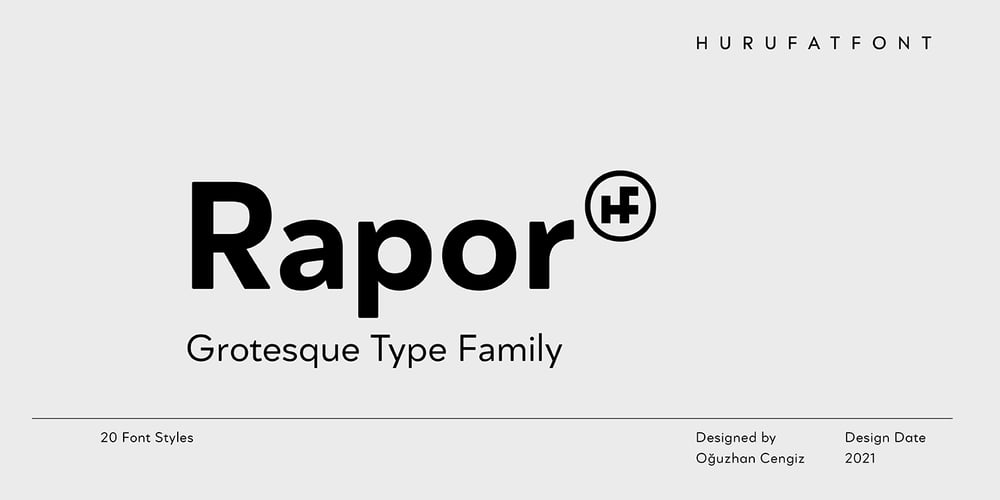
Rapor Font Family was designed by Oğuzhan Cengiz and published by Hurufatfont. Rapor contains 20 styles and family package options. Rapor is a powerful and elegant combination, built from a combination of sans serifs with strong gemometric foundations such as Futura, and grotesque fonts based on the equal-width system. Its slightly softened evenly converging diagonal corners add distinctiveness to it.It has 10 weights ranging from Thin to Black. It consists of twenty styles with matching italics.Rapor is equipped for professional typography with rich opentype features.Rapor OpenType features:aalt, locl (Romanian, Moldovian, Dutch, Catalan, Turkish, Azeri, Crimen Tatar, Kazakh), ordn, locl, case, frac, sinf, subs, sups, numr, dnom, tnum, onum, lnum, pnum, ss01 (Alternative a), ss02 (Alternative g), ss03 (Alternative r), ss04 (Alternative M), ss05 (Circled Figures), ss06 (Apostrophe), ss07 (Dingbats Ligature), dlig, liga, salt, cpsp, calt.Rapor Language Support:Afrikaans, Albanian, Alsatian Aragonese, Arapaho, Aromanian, Arrernte, Asturian, Aymara, Basque, Belarusian (Lacinka), Bislama, Bosnian, Breton, Catalan, Cebuano, Chamorro, Cheyenne, Chichewa (Nyanja), Cimbrian, Corsican, Croatian, Czech, Danish, Dutch, English, Esperanto, Estonian, Faroese, Fijian, Finnish, French Creole (Saint Lucia), Frisian, Friulian, Galician, Genoese, German, Gilbertese (Kiribati), Greenlandic, Haitian Creole, Hawaiian, HiligaynonHmong, Hopi, Hungarian, Ibanag, Icelandic, Iloko (Ilokano), Indonesian, Interglossa (Glosa), Interlingua, Irish (Gaelic), Istro-Romanian, Italian, Jèrriais, Kashubian, Kurdish (Latinized Kurmanji), Ladin, Latvian, Lithuanian, Lojban, Lombard, Low Saxon, Luxembourgian, Malagasy, Malay (Latinized), Maltese, Manx, Maori, Megleno-Romanian, Mohawk, Nahuatl, Norfolk/Pitcairnese, Northern Sotho (Pedi), Norwegian, Occitan, Oromo, Pangasinan, Papiamento, Piedmontese, Polish, Portuguese, Potawatomi, Quechua, Rhaeto-Romance, Romanian, Romansh (Rumantsch), Rotokas, Sami (Inari), Sami (Lule), Samoan, Sardinian (Sardu), Scots (Gaelic), Seychellois Creole (Seselwa), Shona, Sicilian, Slovak, Slovenian (Slovene), Somali, Southern Ndebele, Southern Sotho (Sesotho), Spanish, Swahili, Swati/Swazi, Swedish, Tagalog (Filipino/Pilipino), Tahitian, Tausug, Tetum (Tetun), Tok Pisin, Tongan (Faka-Tonga), Tswana, Turkish, Turkmen, Turkmen (Latinized), Tuvaluan, Uyghur (Latinized), Veps, Volapük, Votic (Latinized), Walloon, Warlpiri, Welsh, Xhosa, Yapese, Zulu